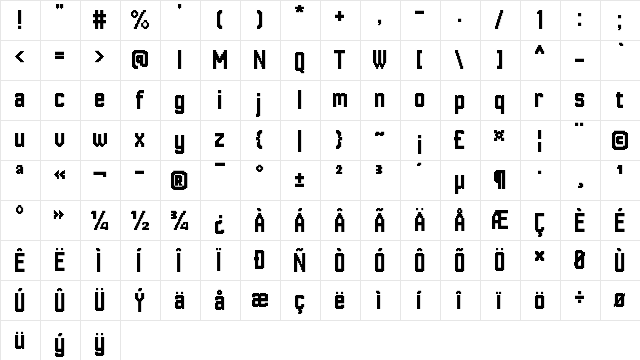
Hannover Messe Sans Regular
Design Context for Hannover Messe Sans Typeface
Hannover Messe Sans takes a measured approach to typography — its balanced proportions and neutral character make it a reliable workhorse for both digital and print work.